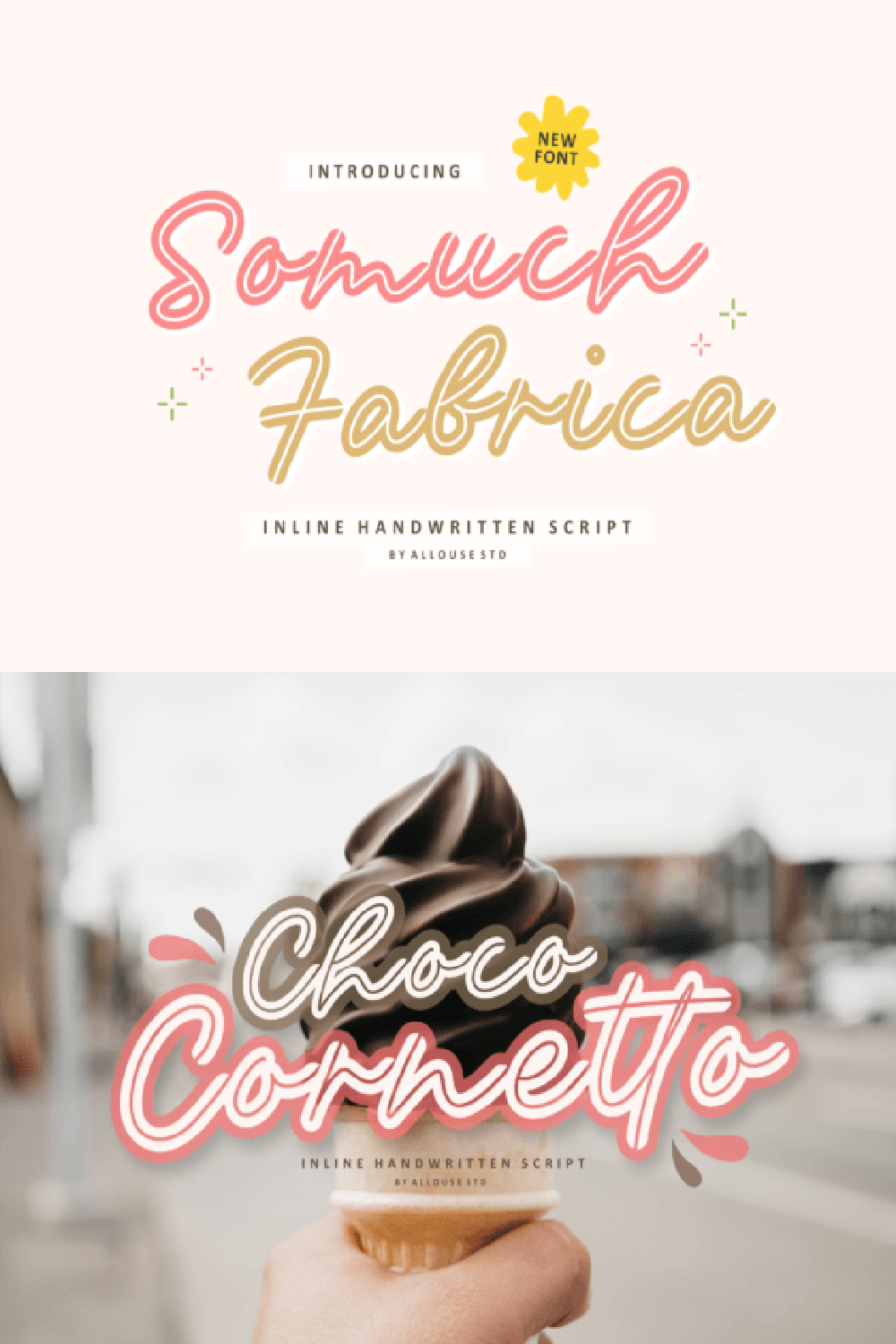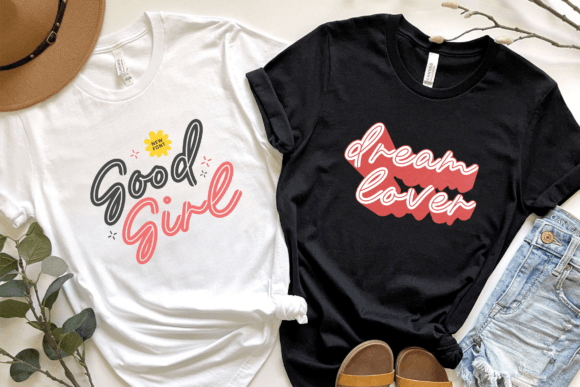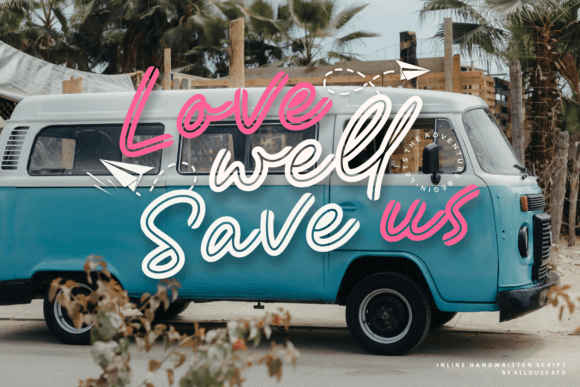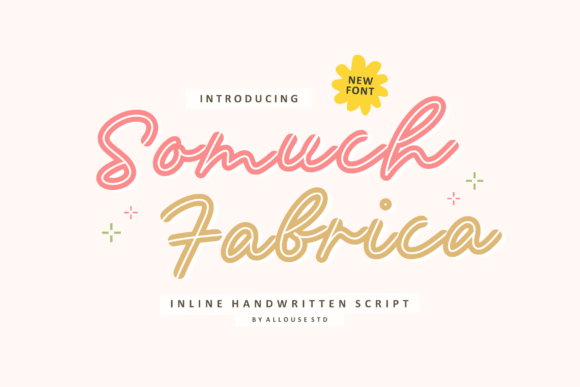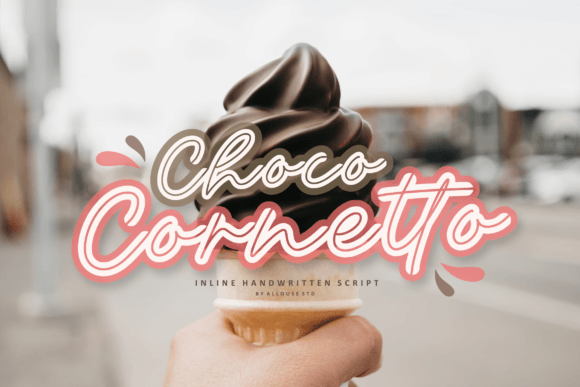
Somuch Fabrica Font
About the Somuch Fabrica Font
Crafted with precision, the Somuch Fabrica Font is ready to bring your ideas to life. Somuch Fabrica is a delicate and elegant handwritten font. Its distinct and well balanced letters make this font a masterpiece. Fall in love with its incredibly versatile style and use it to create spectacular designs!
Somuch Fabrica Font Usage Examples